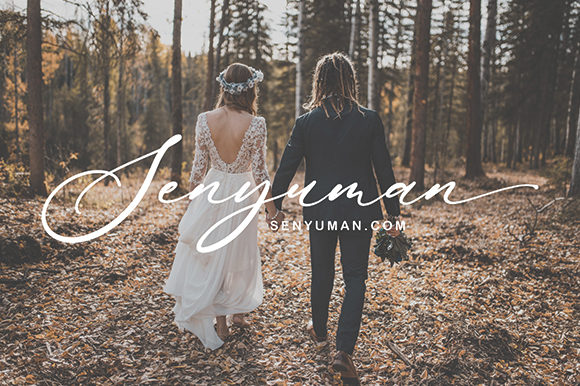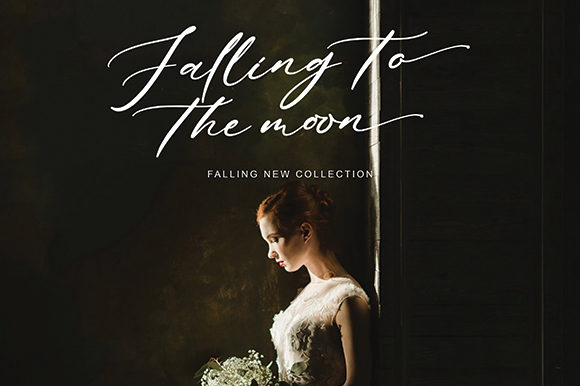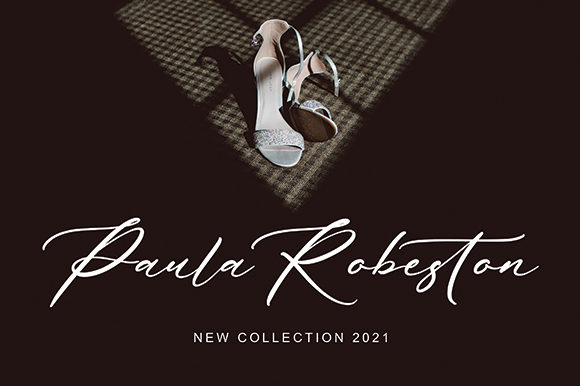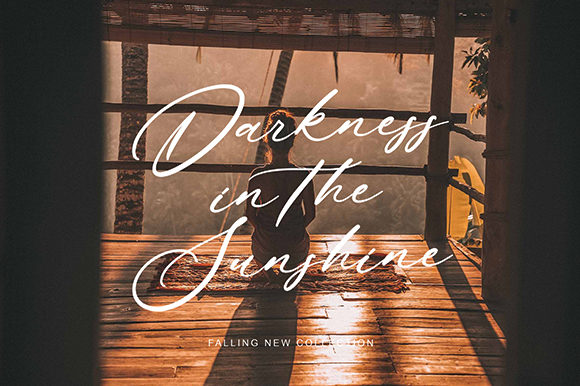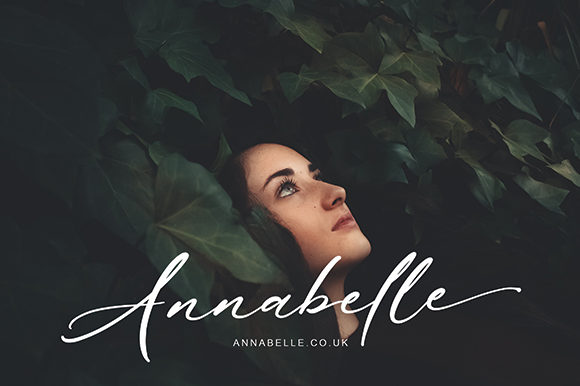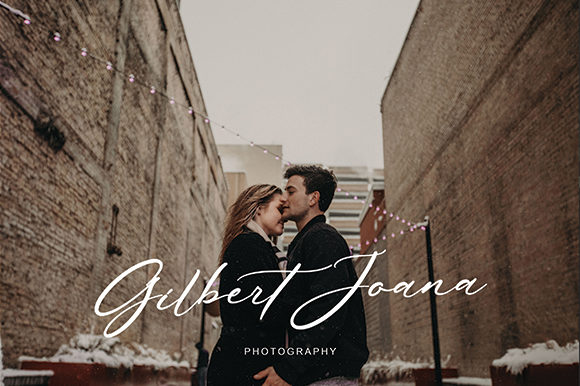
Introducing Amestaya Font: The Enchanting Handwritten Script to Elevate Your Designs
Are you on the lookout for a font that can add a touch of romance and elegance to your designs? Look no further than Amestaya Font, a beautiful handwritten script that is sure to captivate your audience. With its versatile nature, Amestaya can be used across a wide range of applications, from greeting cards and invitations to headlines and branding materials.
The Charm of Amestaya Font
Amestaya Font is an enchanting handwritten font that boasts a unique and distinctive character. Its elegant strokes and flowing curves give it a romantic feel that is perfect for designers and crafters looking to add a touch of sophistication to their work. Whether you’re creating a wedding invitation, a greeting card, or a social media graphic, Amestaya is sure to make your design stand out.
Key Features of Amestaya Font
- Versatile: Amestaya Font is incredibly versatile and can be used across a wide range of applications, from print materials like greeting cards and invitations to digital designs like social media graphics and website headers.
- Romantic Feel: Amestaya Font has a distinctly romantic feel that makes it perfect for designers and crafters looking to create beautiful and elegant designs.
Use Cases for Amestaya Font
Amestaya Font is suitable for a wide range of design projects, including:
- Greeting Cards: Add a touch of elegance to your greeting cards with Amestaya Font. Whether you’re creating a birthday card, a wedding card, or a holiday card, Amestaya is sure to make your design stand out.
- Invitations: Create beautiful and elegant invitations with Amestaya Font. Whether you’re planning a wedding, a baby shower, or a birthday party, Amestaya is the perfect choice.
- Headlines: Use Amestaya Font to create stunning headlines for your blog posts, articles, or social media graphics.
- Branding: Add a touch of sophistication to your brand with Amestaya Font. Use it to create elegant logos, business cards, or letterheads.
Tips for Using Amestaya Font
Here are a few tips for using Amestaya Font in your designs:
- Pair it with a simple font: Amestaya Font is a decorative font, so it’s best to pair it with a simple font to create contrast.
- Use it sparingly: While Amestaya Font is beautiful, it’s best to use it sparingly to avoid overwhelming your design.
- Experiment with swashes: Amestaya Font comes with a range of beautiful swashes that can add a touch of elegance to your design.
Amestaya Font is a beautiful and enchanting handwritten script that is sure to elevate your designs. With its versatile nature, romantic feel, and PUA encoding, Amestaya is the perfect choice for designers and crafters looking to add a touch of sophistication to their work. Whether you’re creating greeting cards, invitations, headlines, or branding materials, Amestaya Font is sure to make your design stand out.